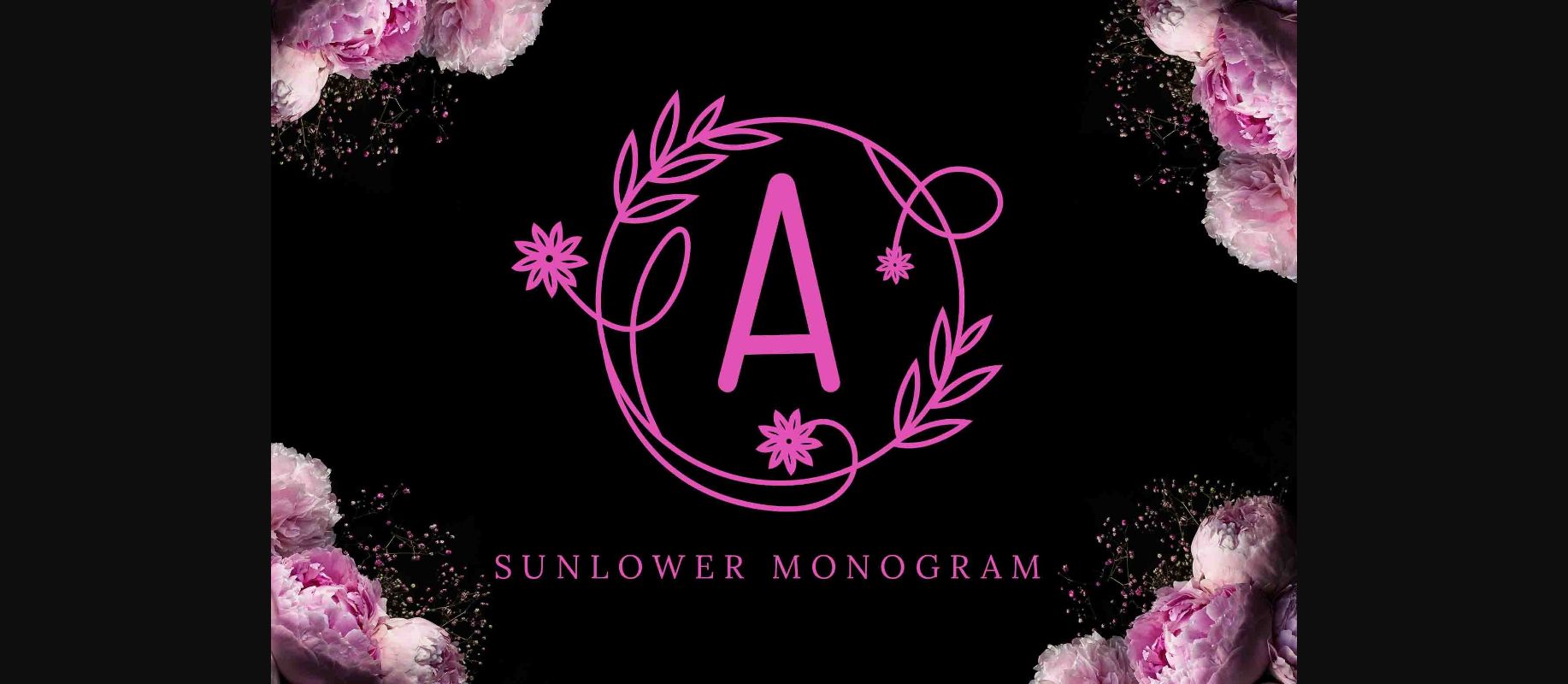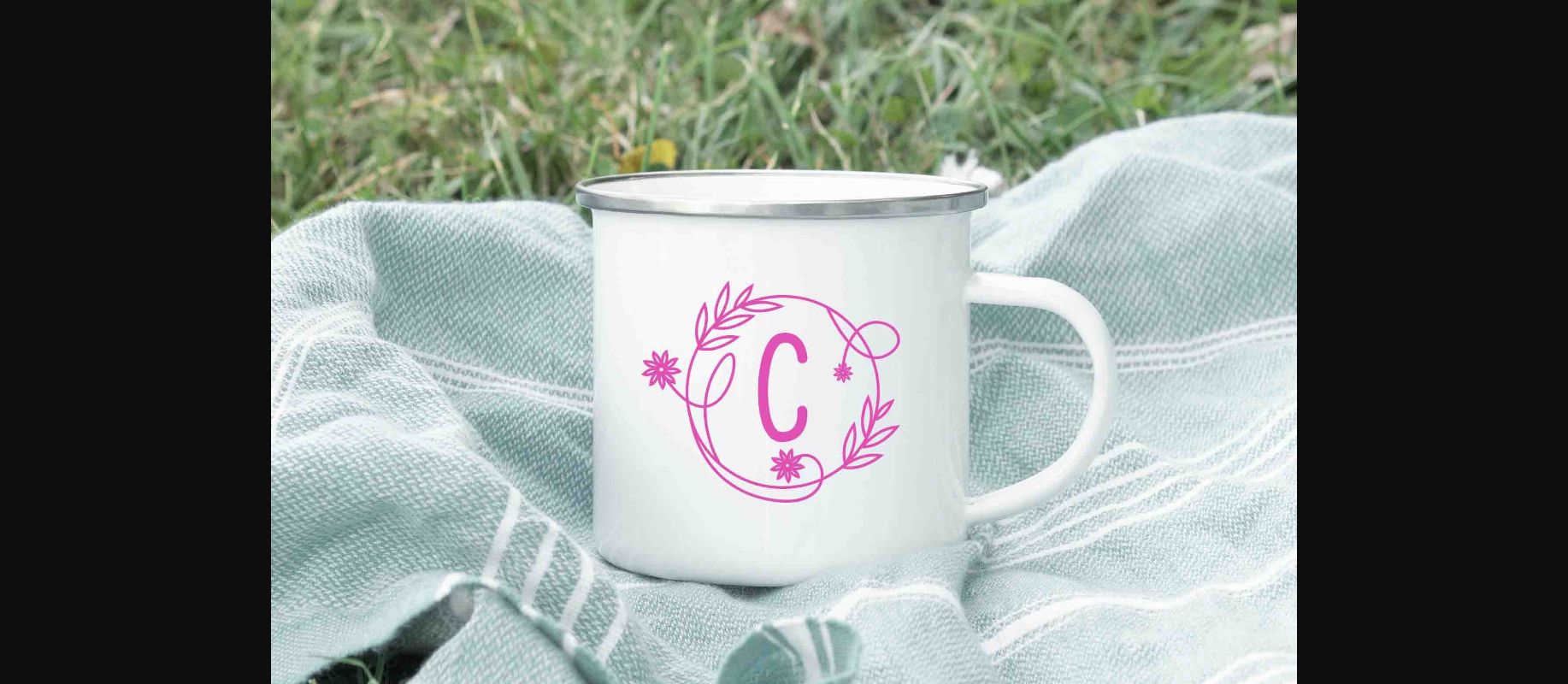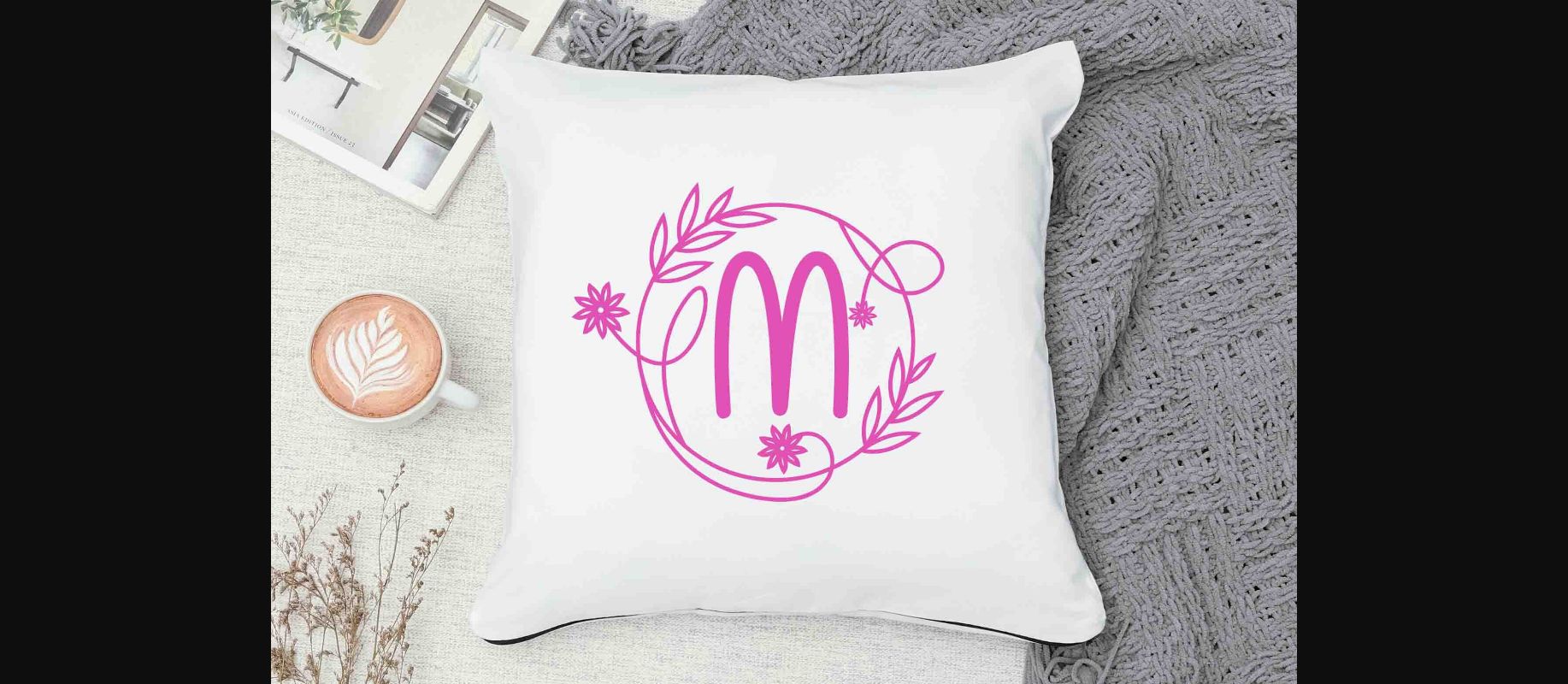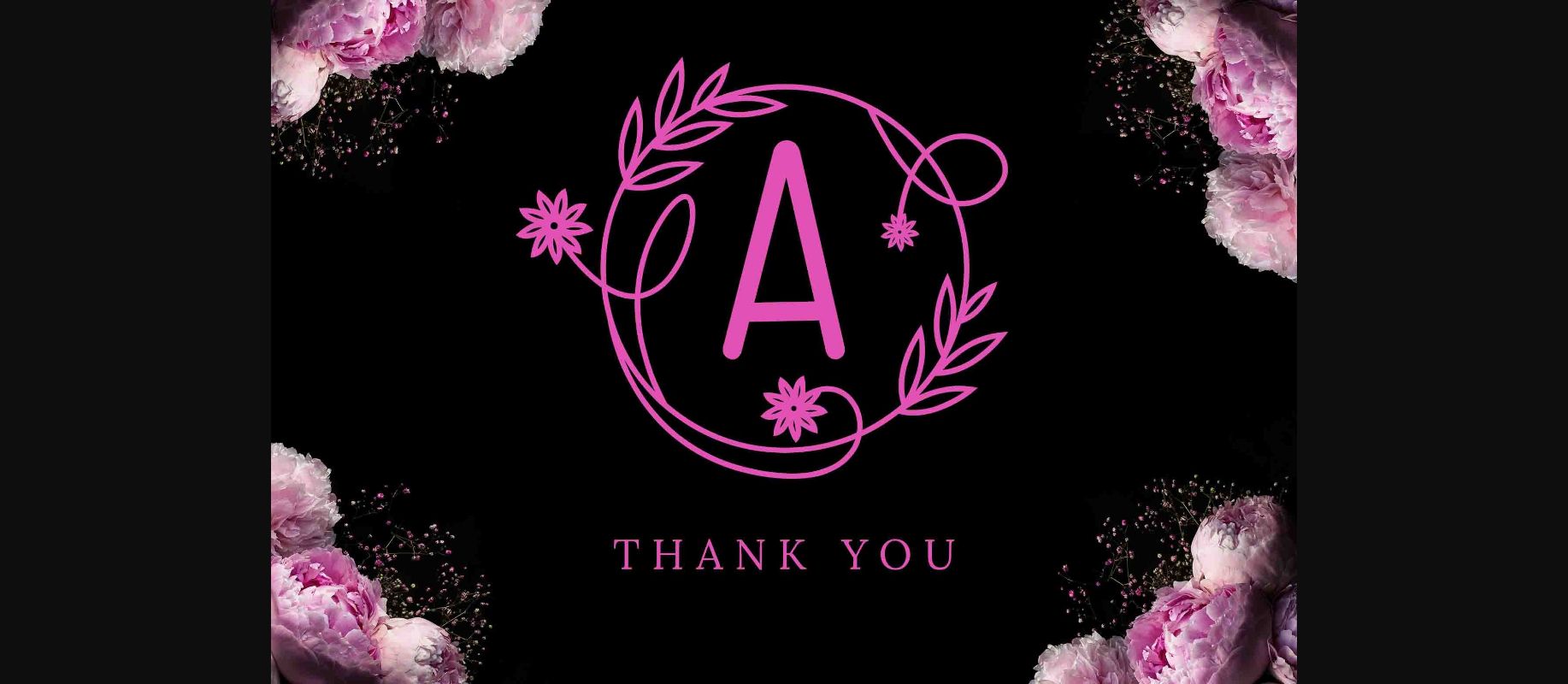
Sunlower Monogram Font
About Sunlower Monogram Font
Sunlower monogram is an elegant and romantic decorative writing font, the ornaments that decorate each letter are the reason why this font is one of your favorite fonts that is worth buying. Suitable for making social media posts, designing mugs, tsirts, totebags, and many more